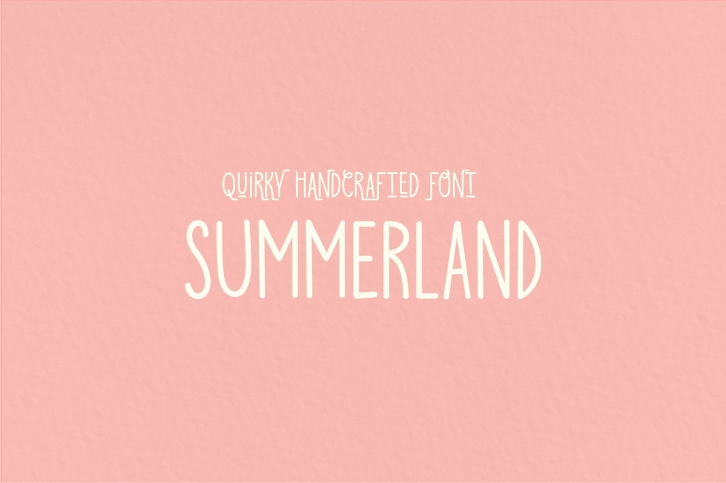
Summerland is a trendy and unique font with an authentic style. It was designed by Sunday Nomad and it's a great choice for creative people who need such a font. It was released on August 6, 2020 and the file size is 2.25 MB. Summerland will add an organic vibe to any design idea!